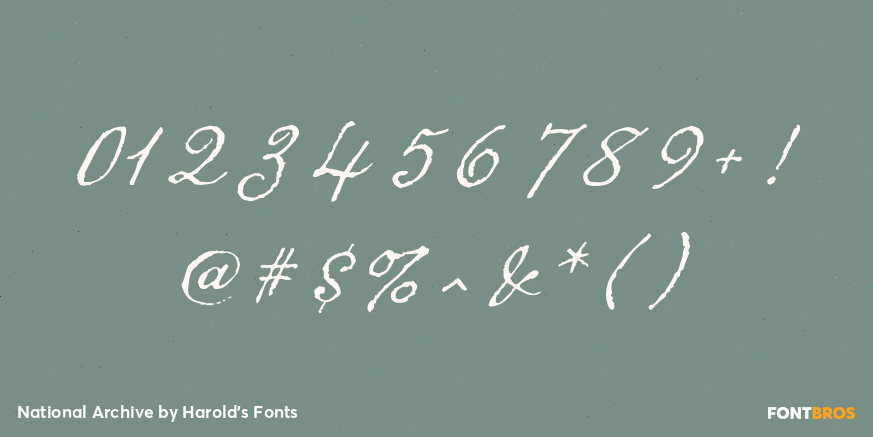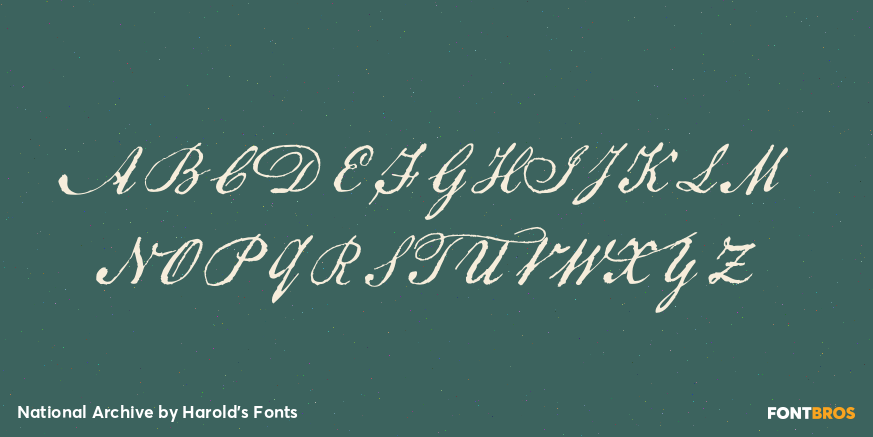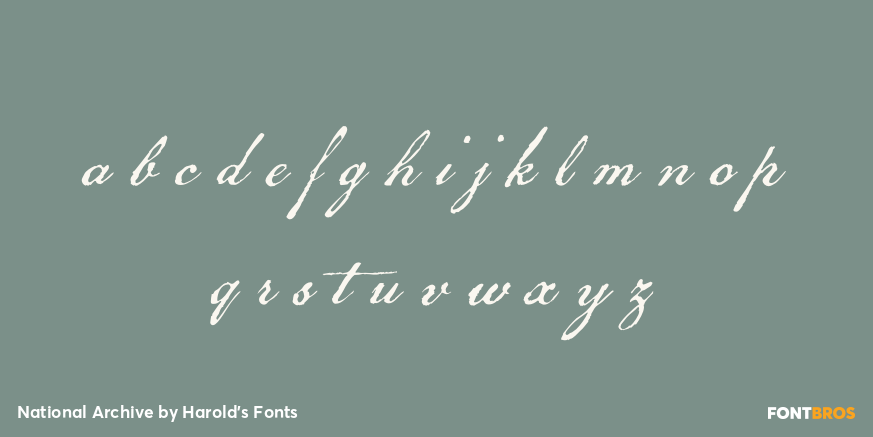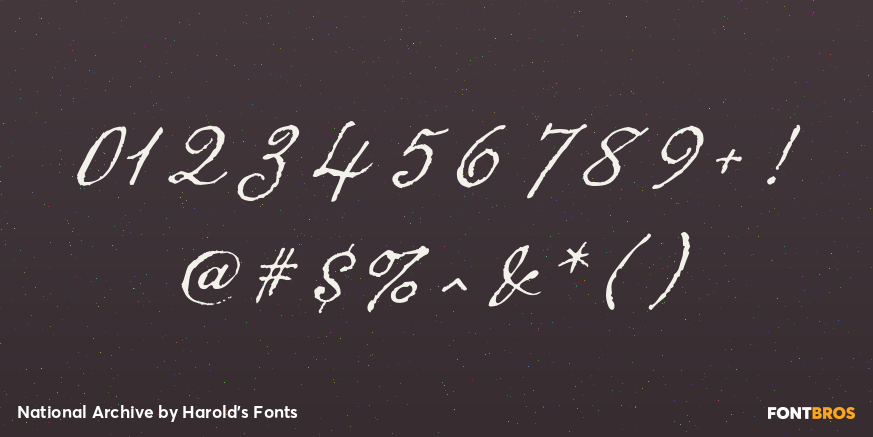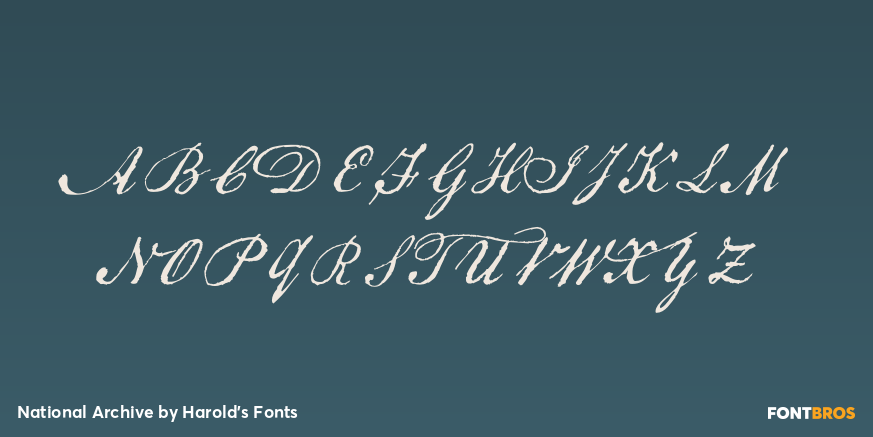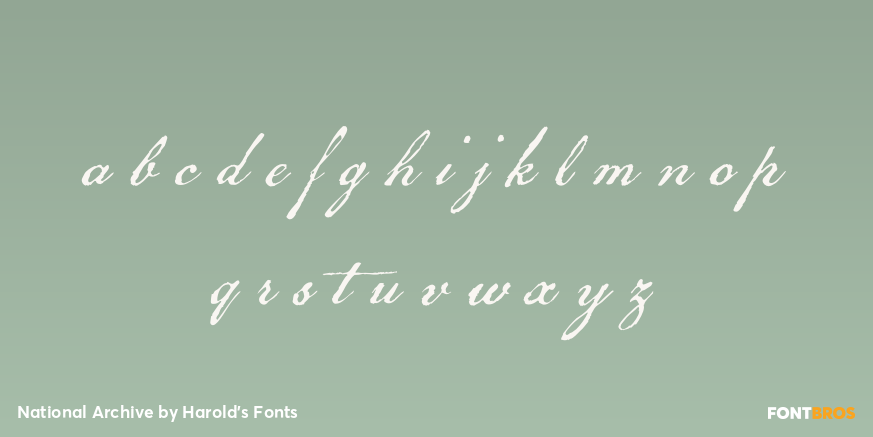
National Archive
Font Family by Harold's Fonts
NATIONAL ARCHIVE has the feel of a historic script: elegant penmanship paired with the roughness of quill on paper.
National Archive was inspired by the familiar look of the Declaration of Independence. Although the text was composed by Thomas Jefferson and others, Timothy Matlack is the person who inscribed it on vellum so beautifully, creating an indelible symbol of our nation's founding.
Version 4.0 includes all new numbers as well as an expanded character set and improved spacing and kerning.